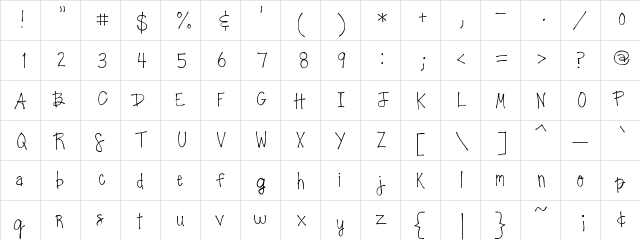
jsbBestofBothWorlds Medium
Design Context for jsbBestofBothWorlds Typeface
jsbBestofBothWorlds takes a measured approach to typography — its balanced proportions and neutral character make it a reliable workhorse for both digital and print work.